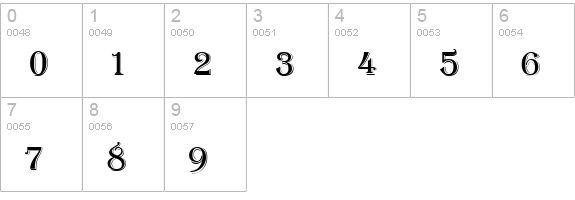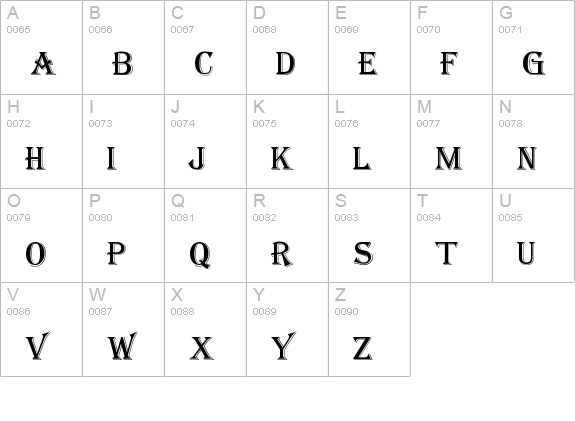
Tangiers Normal Font Details
Tangiers Normal is the standard, neutral variant in the Tangiers typeface family \xE2\x80\x94 well suited to general body text, paragraphs, and standard typographic work.
Tangiers Normal font is a stunning typeface that effortlessly combines elegance and versatility. Its timeless design and clean lines make it suitable for a wide range of creative projects, from branding and packaging to editorial design and beyond. With its balanced proportions and gentle curves, Tangiers Normal exudes a classic sophistication that never goes out of style. The font's smooth edges and well-defined letterforms ensure excellent legibility, whether used for body text or headlines. One of the most remarkable features of Tangiers Normal font is that it is available for free. Yes, you read that right - this beautiful typeface can be downloaded without any cost at FontsMarket.com. This means that you can easily access and utilize this font in your projects without breaking the bank. Whether you are a professional designer or a casual enthusiast, Tangiers Normal font offers a wealth of possibilities. Its versatility allows it to adapt seamlessly to different design styles and applications. From elegant wedding invitations to modern website designs, this font effortlessly elevates any project. The attention to detail and meticulous craftsmanship that went into creating Tangiers Normal font is evident in every letter. Each character is carefully designed to maintain a perfect balance between form and function, ensuring a harmonious overall look. So why wait? Take advantage of the opportunity to enhance your designs with Tangiers Normal font. Download it for free at FontsMarket.com and unlock a world of creative possibilities. With this font by your side, you can confidently create visually stunning projects that leave a lasting impression.